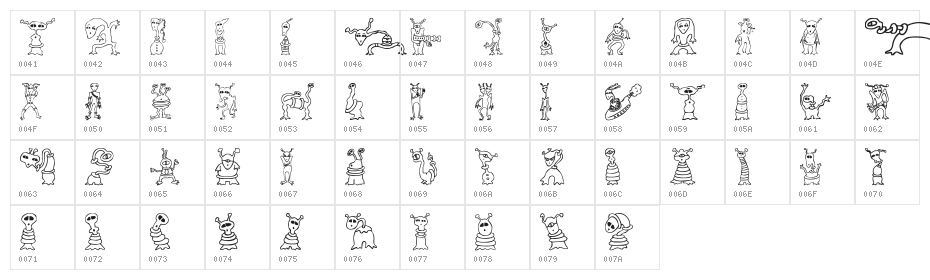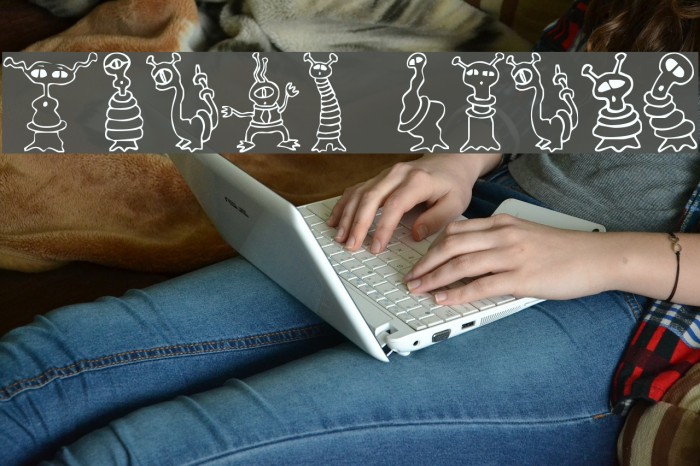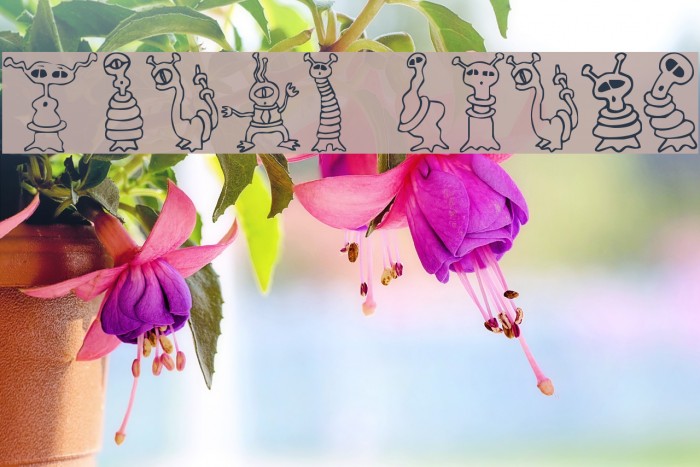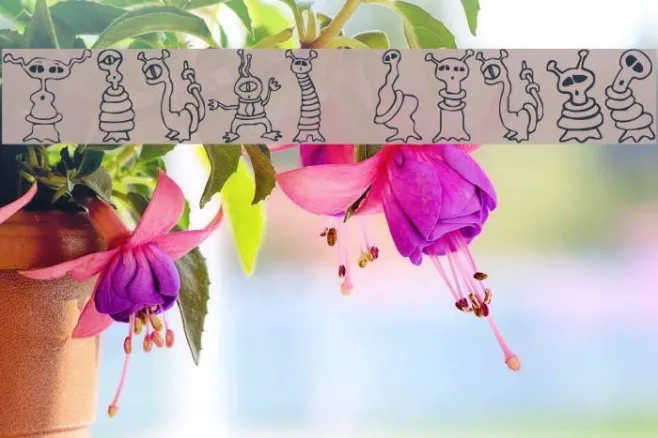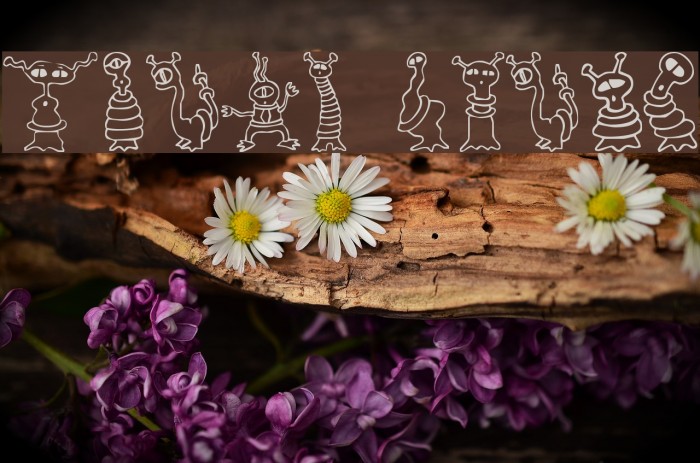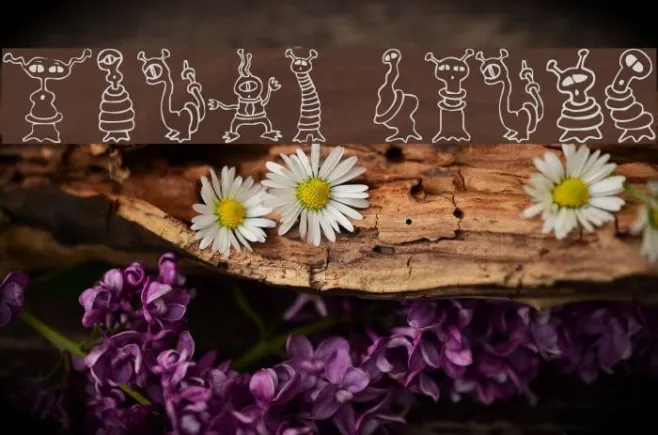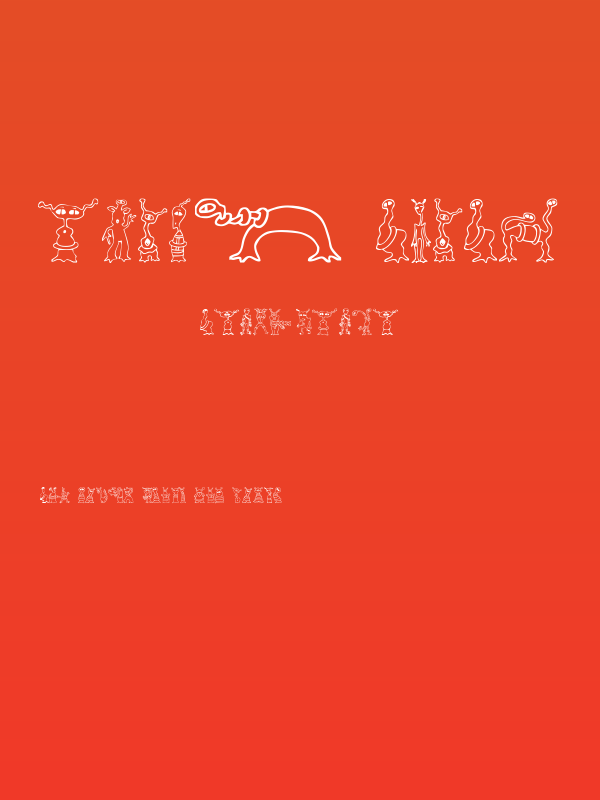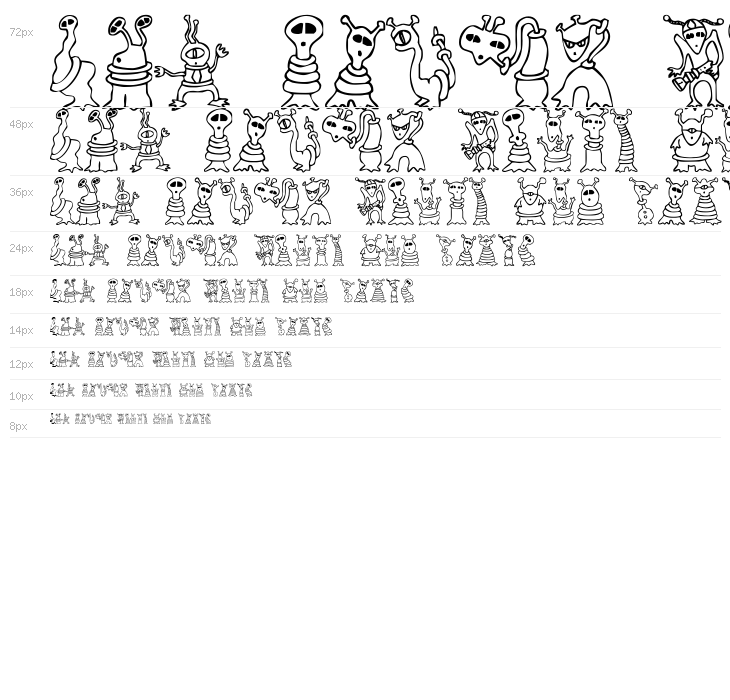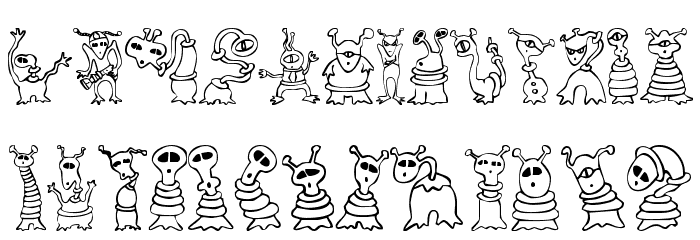
Alien Twits Font
Alien Twits Description
This whimsical and playful font features a series of alien-like characters, each with unique and imaginative designs. The characters are highly decorative, with intricate details and quirky shapes that give them a lively and animated appearance. The font lacks traditional letterforms, instead offering a collection of creative and humorous alien figures. The style is distinctly illustrative, making it more of an art piece than a functional typeface for text. The characters are bold and expressive, with varying line thicknesses that add to their dynamic and engaging look.
| Use Case | Logos, Posters, Art projects |
| Proposed Projects | Ideal for children's books, sci-fi themed posters, creative art projects, and any design requiring a playful and unique touch. |